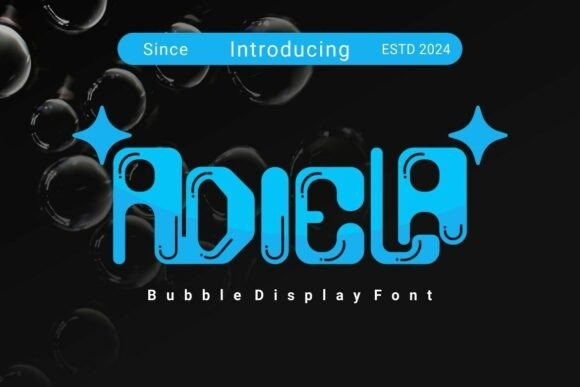
Adiela Font
Designer: Kenrichi
Adiela Font a playful bubble display font that is bursting with personality. Characterized by its ultra-bold, rounded letterforms and charming “bubble shine” internal details, this font captures a joyful, street-art inspired aesthetic. It is a fantastic choice for juice packaging, children’s event posters, toy branding, and vibrant social media graphics. Adiela turns every word into a celebratory statement, making it the ultimate “pop” font for high-energy designs.